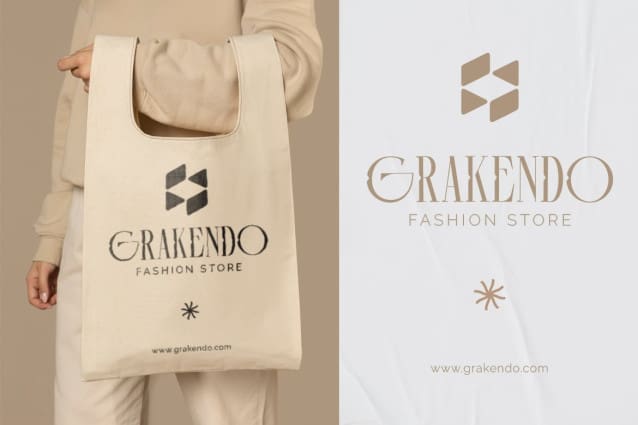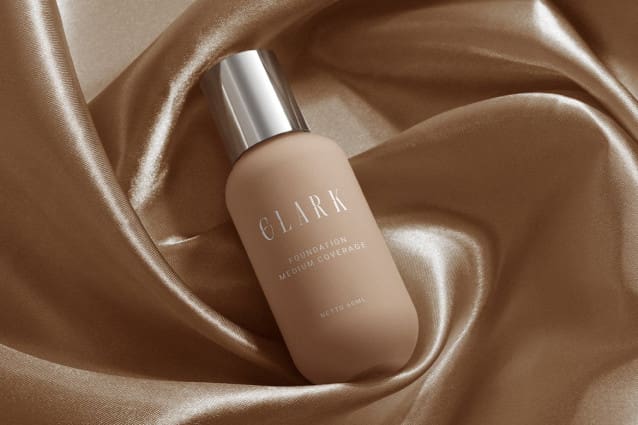
Grandero Font
Grandero Font is a sleek and sophisticated thin serif typeface that combines elegance and modernity. With its refined, narrow letters and delicate serifs, Grandero Font is perfect for high-end brands, editorial design, fashion magazines, and luxury packaging. This typeface exudes a sense of sophistication and style, making it ideal for projects that require a clean yet distinguished look. Grandero’s versatility and grace make it a go-to choice for designers looking to add a touch of elegance and refinement to their work.